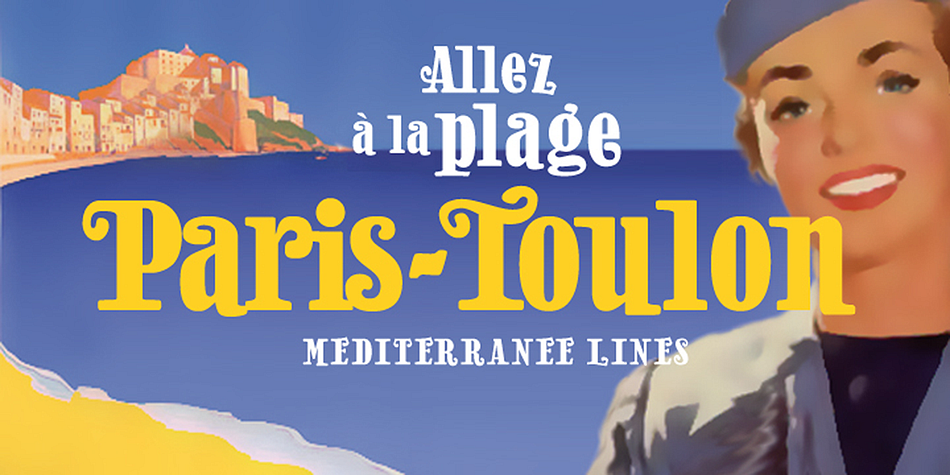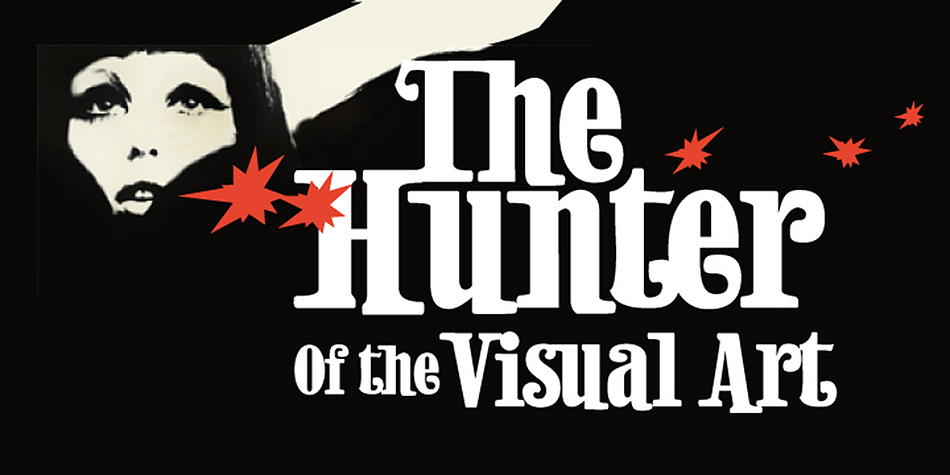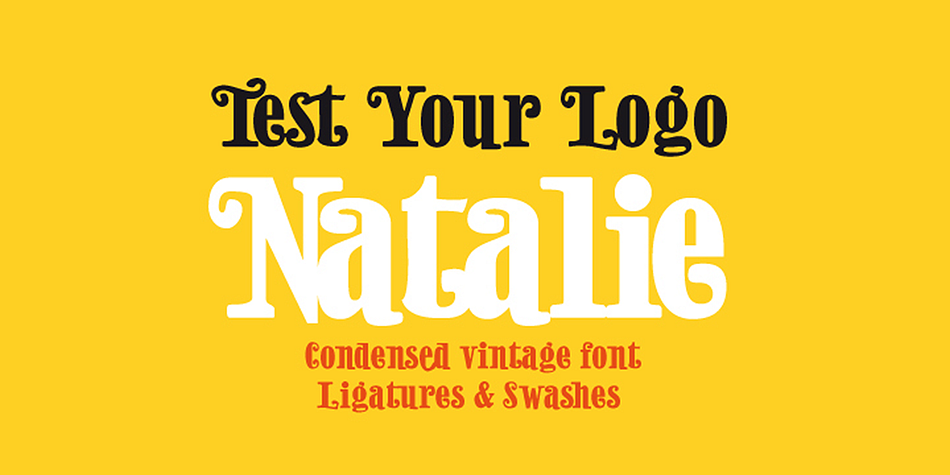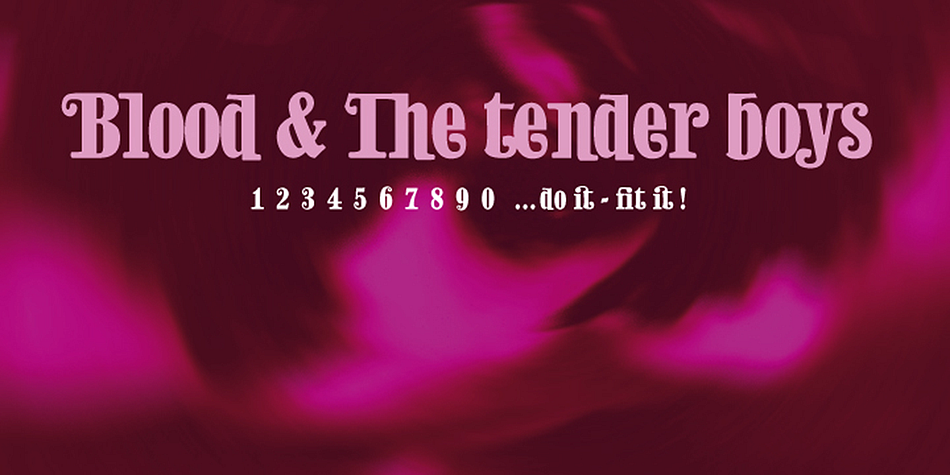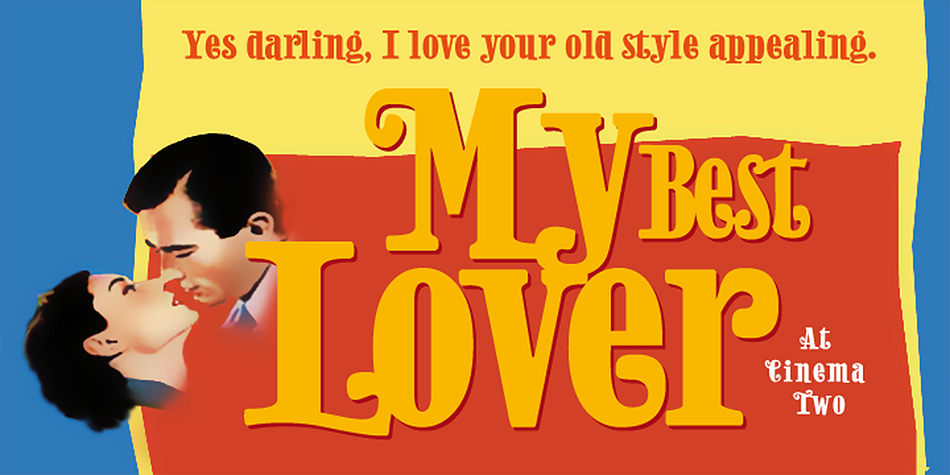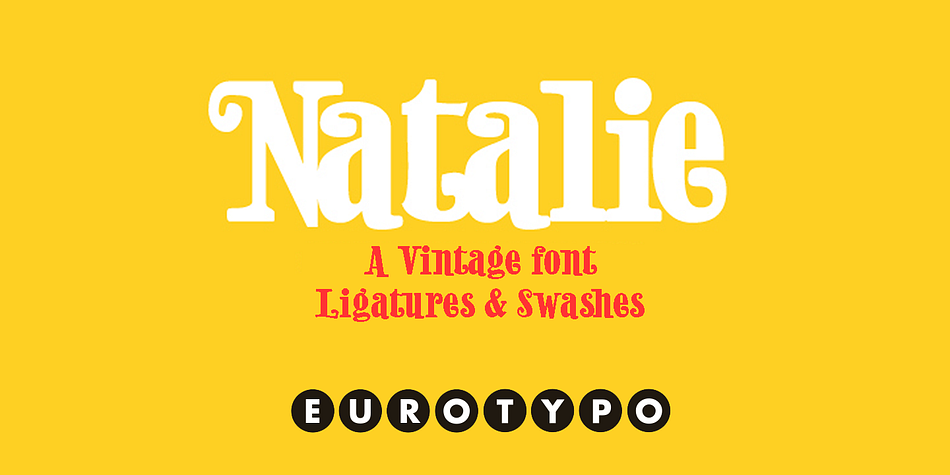
Designed by Carine de Wandeleer, Natalie is a hand display slab font family. This typeface has three styles and was published by Eurotypo.
Natalie is a condensed Slab Serif font that was inspired on some film posters from the middle of the last century. Actually this typeface looks like a typically vintage stile.
Natalie has been designed for use in many kind of commercial job and typographic work like posters, brochures, packaging, logotypes, magazines, children books, headlines, booklets, leaflets, websites, and much more.
This font has also a set of ligatures, stylistic alternates and swashes that enlarge the visual impact. Natalie can offer you more creative chances.
| Styles | Display Slab, Hand Display |
| Designer | Carine de Wandeleer |